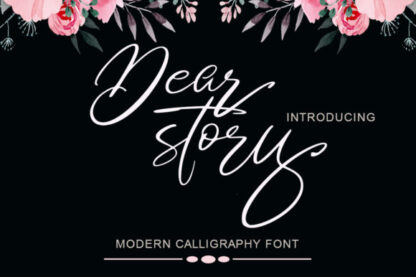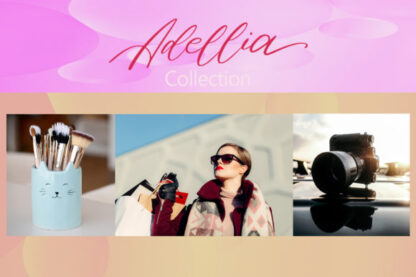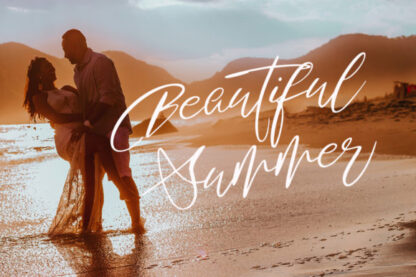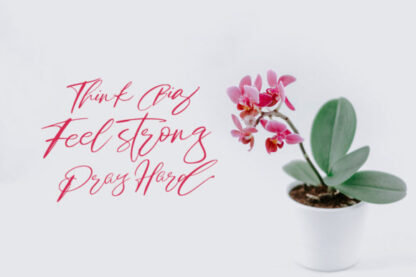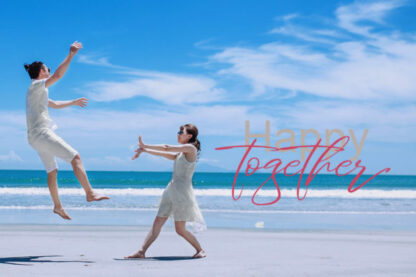
Dear Story Font
Dear story is a cute handwritten font with modern hand scratches. It brings ligatures and alternate stylistic. Fall in love with its authentic feel and use it to create gorgeous wedding invitations, beautiful stationary art, eye-catching social media posts, and cute greeting cards.